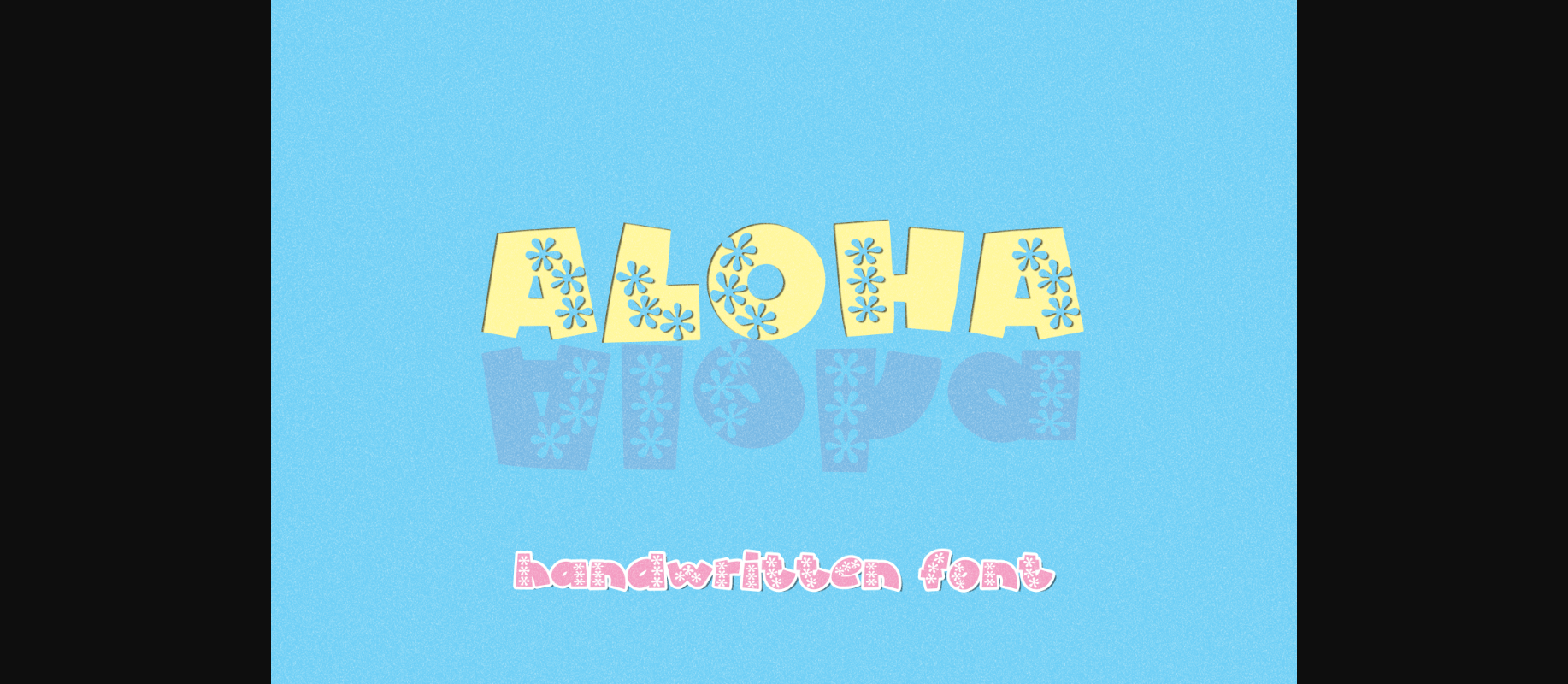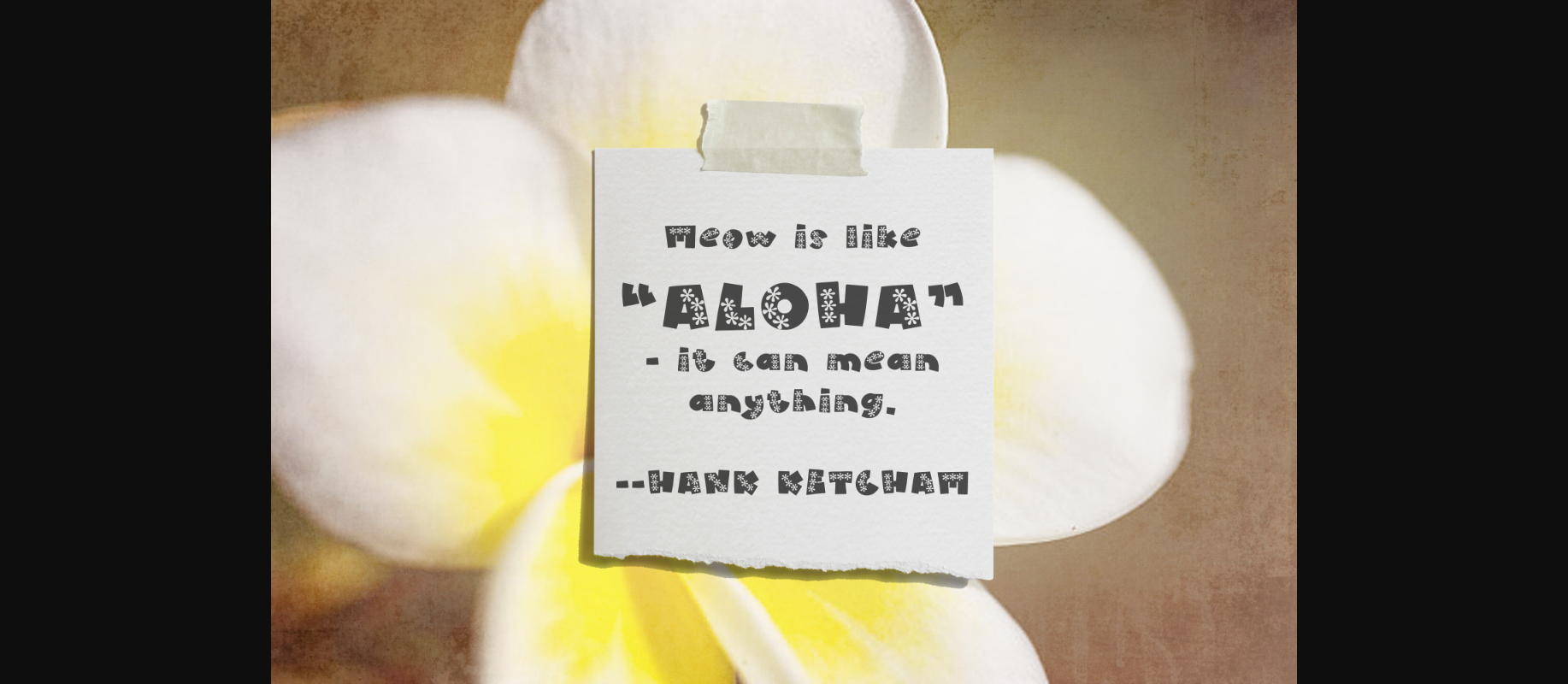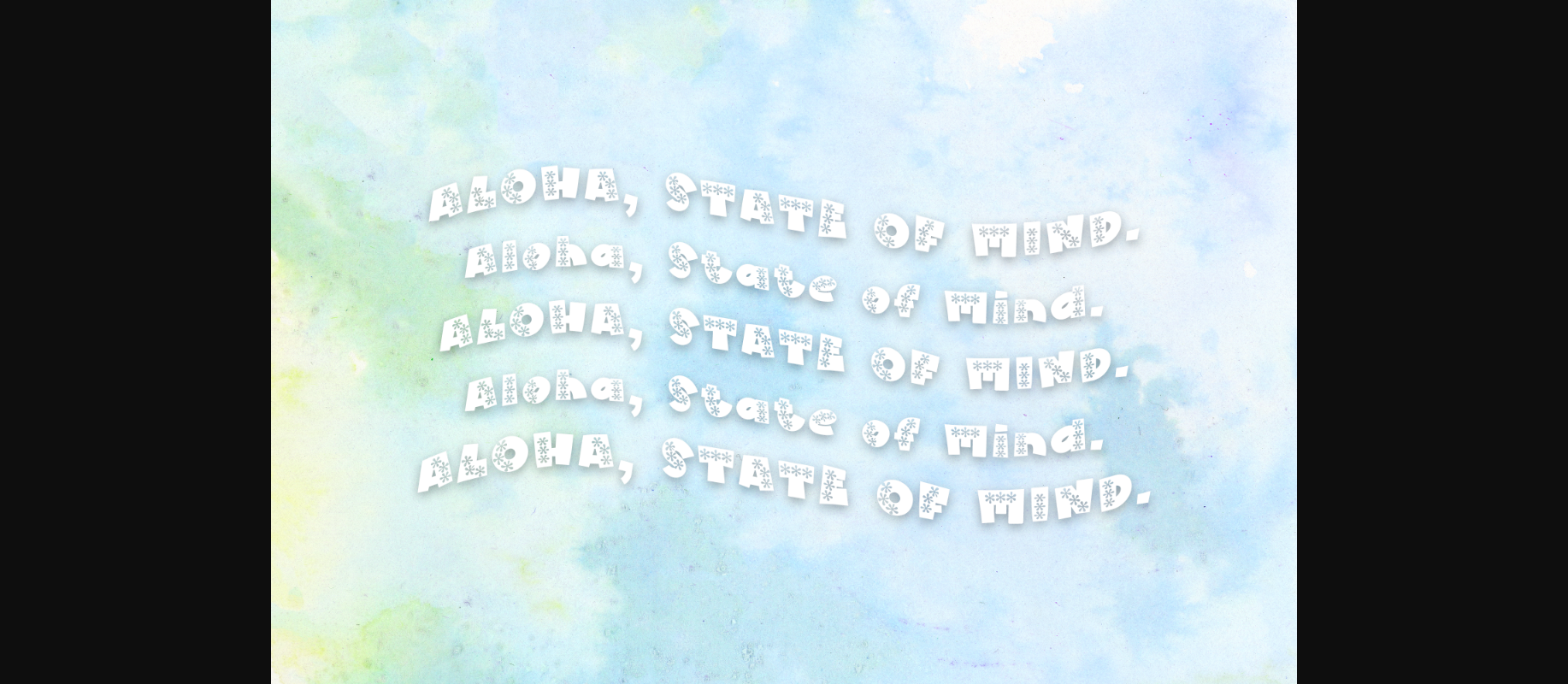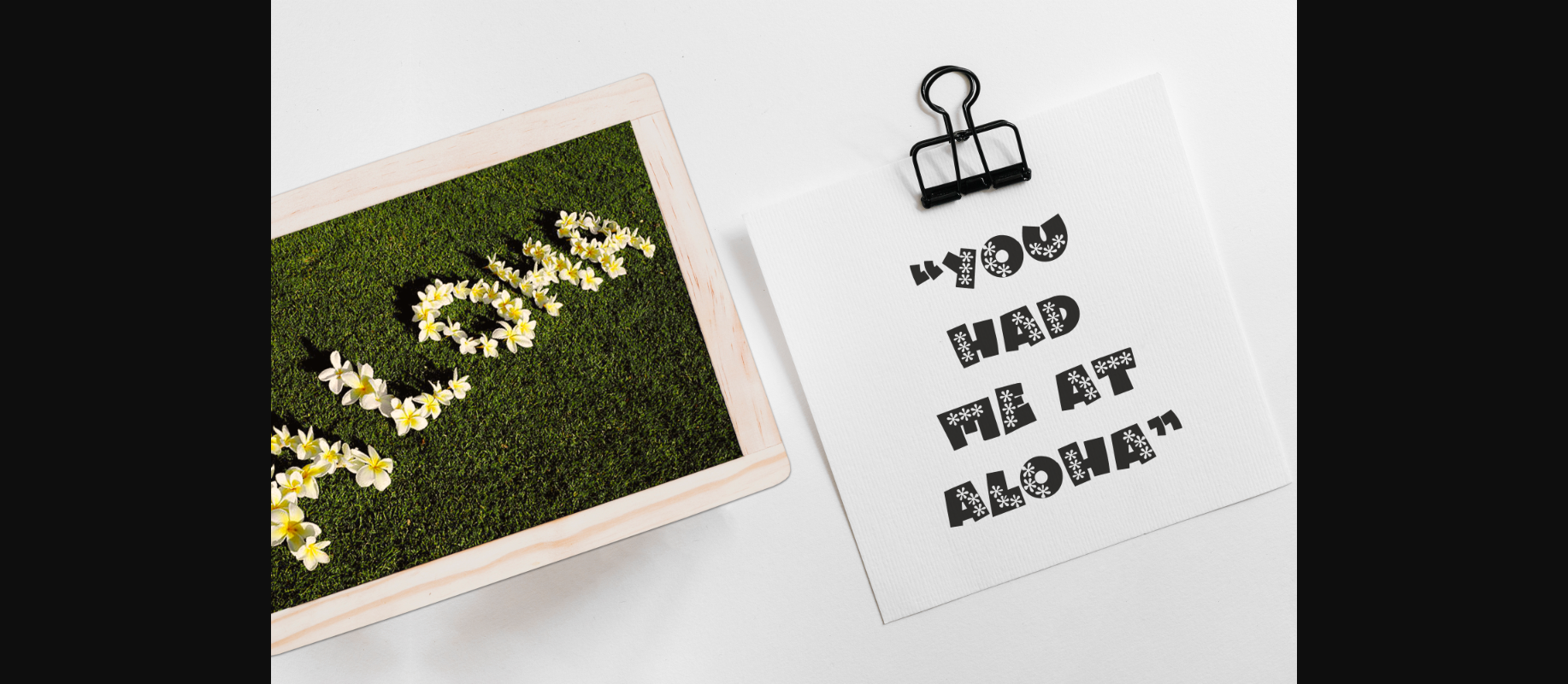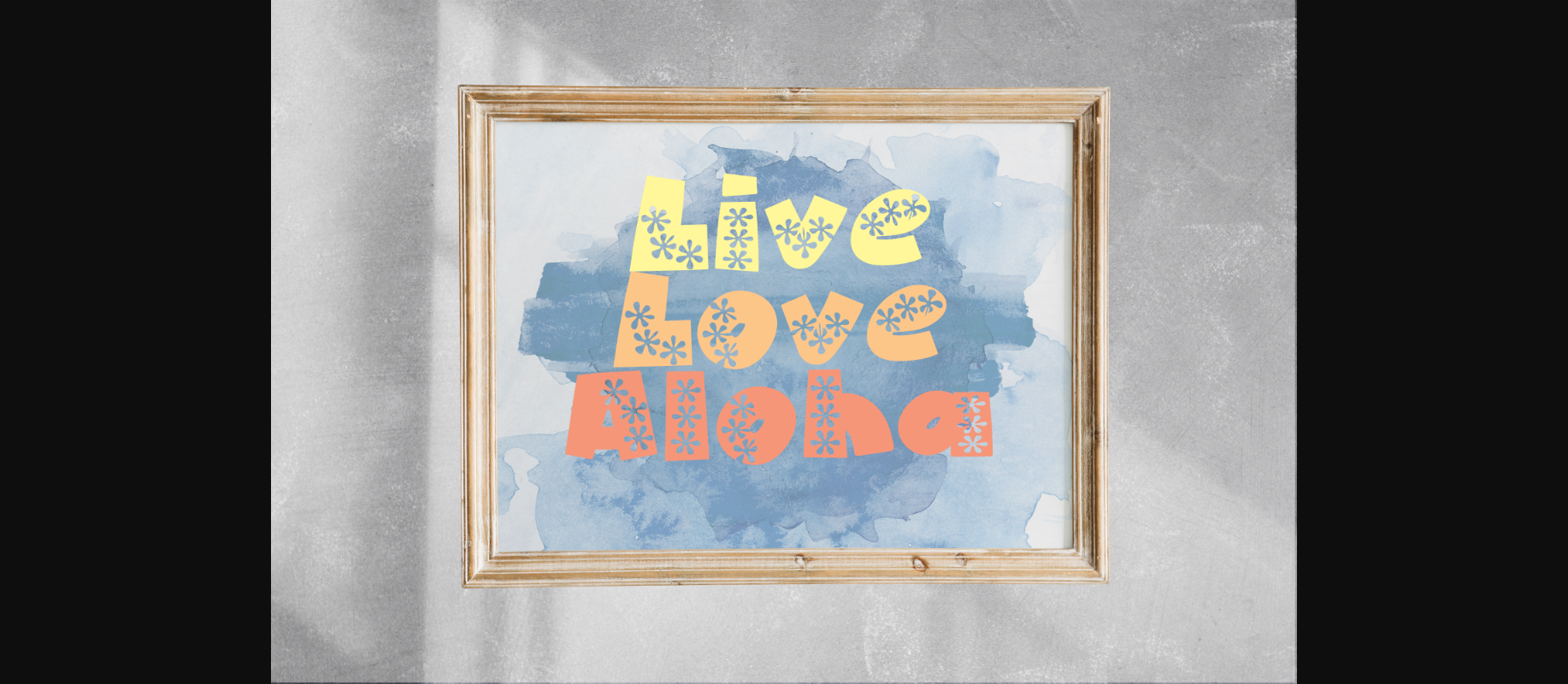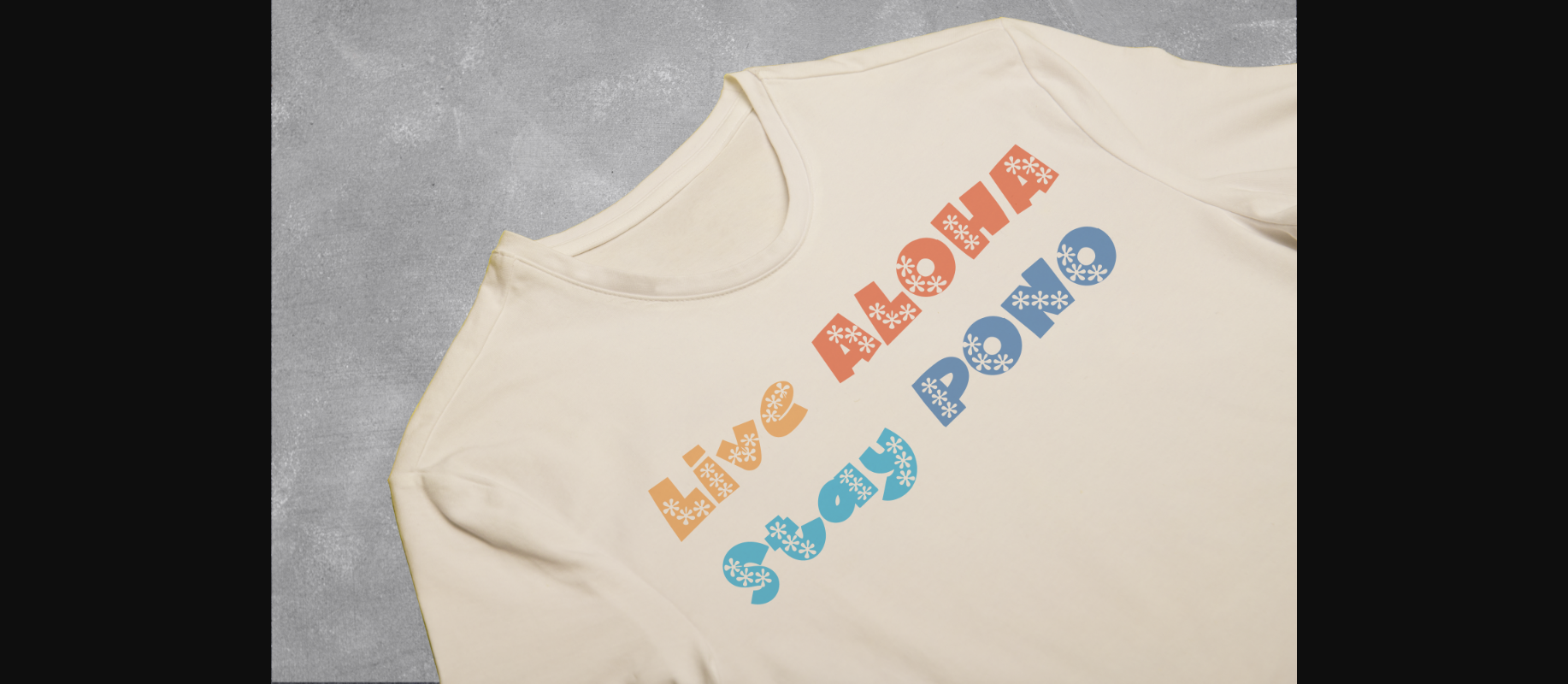
About Aloha Font
The Aloha decorative font has cute flower patterns inside each letter making this a beautiful font to choose from for tropical-themed invitations, businesses, or events.